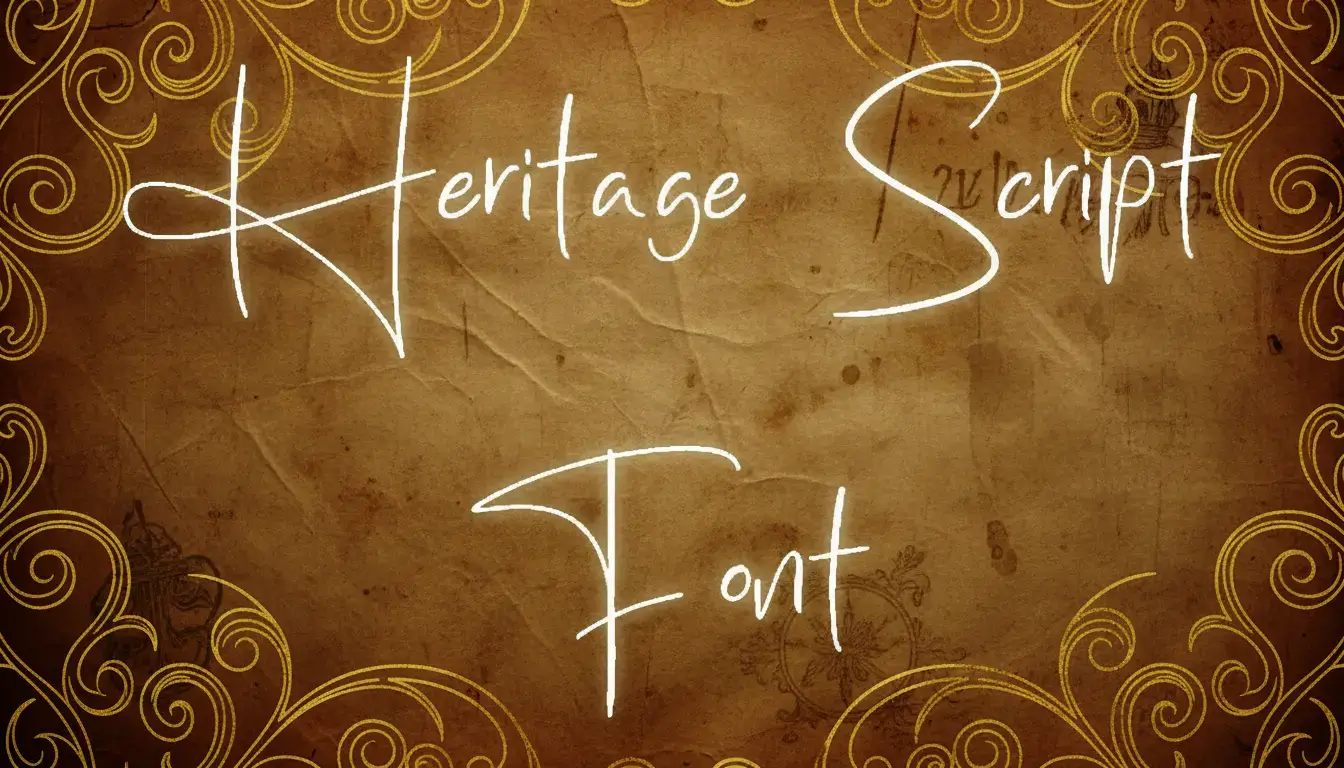
Heritage Script Font
Heritage Script
Heritage Script is a script font created by MJType (Muhamad Junaid). It has that hand-lettered, flowing feel people look for when regular type seems too stiff. You can download it for free and test it with your own words in the preview above.
What You Can Type With Heritage Script
Heritage Script covers the full alphabet in upper and lowercase, plus all ten numbers, so you can set names, dates and prices without switching fonts. Common punctuation such as &, !, ? and @ is included as well. It also has the accented letters you need for Spanish, French, German, Portuguese and Italian.
Where Heritage Script Works Best
Think of Heritage Script for wedding invitations, logos and signature-style headings. Script fonts read best in short bursts, so keep it to names, titles and one-line quotes. Skip all caps: script capitals are drawn to start a word, not to fill one.
Does Heritage Script support accented letters?
Yes. Heritage Script includes the accented letters needed for Spanish, French, German, Portuguese and Italian, so it works for more than just English.